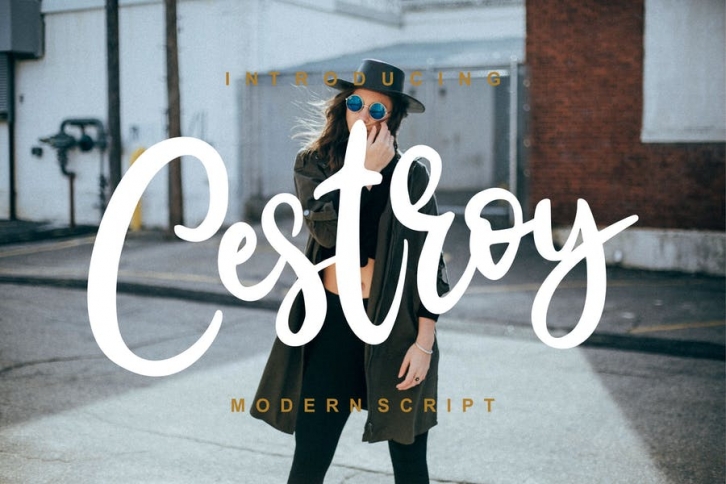
Cestroy Modern Script FONT Download
Cestroy Modern Script - is a new font that is authentic and suitable for many of your visual needs, like for invitation, greeting cards, branding materials, business cards, quotes, posters, and more!
this font Open Type features such as Stylistic Sets, Stylistic Alternates, Contextual Alternate, SWASH and Ligature. The Open Type features can be accessed by using Open Type savvy programs such as Adobe Illustrator, Adobe InDesign, Adobe Photoshop Corel Draw X version, And Microsoft Word. And this Font has given PUA unicode (specially coded fonts). so that all the alternate characters can easily be accessed in full
• special character for Alternates and Ligatures
• PUA Encoded Characters - Fully accessible without additional design software.
• Fonts include Multilingual Support